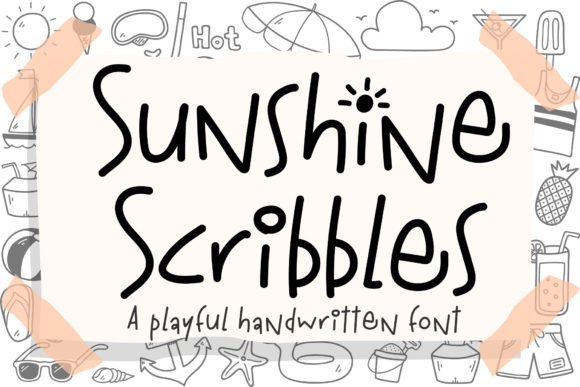
Embark on a typographic adventure with Sunshine Scribbles Font, a whimsical journey through the world of creativity. Crafted by Nobu Collections, this enchanting script font is an ode to the spontaneity of scribbles and the joy of self-expression.
Sunshine Scribbles Font is the ultimate companion for designers seeking a unique and eye-catching font for their projects. Its simple elegance and playful nature make it perfect for logos, branding, invitations, and any design that calls for a touch of personality. With its clean lines and effortless flow, this font adds a sense of warmth and charm to your creations, inviting viewers to immerse themselves in a world of imagination.
Whether you're a seasoned designer or just starting out, Sunshine Scribbles Font is the perfect tool to bring life to your designs. Its versatility and charm will captivate your audience, inspiring them to connect with your message on a deeper level. It's like having a secret weapon in your typographic arsenal, a font that transforms ordinary words into captivating expressions of creativity. Embrace the beauty of Sunshine Scribbles Font and watch as your designs blossom with radiance and joy.